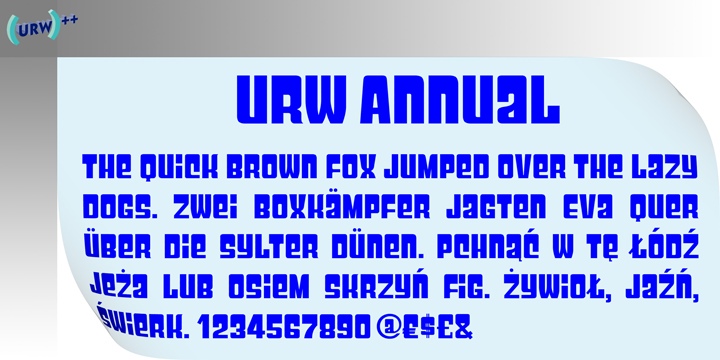
Annual Font
Annual Font is perfect for corporate annual reports, financial presentations, business documentation, professional newsletters, quarterly statements, investment portfolios, executive summaries, and formal corporate communications where authority and credibility are crucial.
What makes Annual Font so exciting is its sophisticated corporate character that instills confidence and professionalism in every document while maintaining exceptional readability for complex data presentations. The structured letterforms create a sense of reliability and trustworthiness that perfectly aligns with corporate communication standards.
The Annual Font family includes light, regular, medium, bold, and extra bold weights, along with condensed variants and matching italics, providing comprehensive flexibility for hierarchical document structures and multi-level information presentation.
This authoritative typeface embodies the essence of corporate excellence, combining formal design principles with contemporary accessibility standards. The Annual Font Free Download offers businesses access to a premium font that communicates competence and organizational strength.
The font's carefully balanced proportions and consistent spacing ensure optimal performance in dense text environments typical of financial documents and technical reports. Advanced kerning and spacing adjustments guarantee professional appearance across all business applications from printed materials to digital presentations.
Annual Font features extensive numerical support including tabular figures, fractions, and scientific notation, making it ideal for financial data, statistical information, and technical documentation. The typeface maintains clarity and distinction even in small sizes commonly used for footnotes and disclaimers.
From boardroom presentations to shareholder communications, this font projects authority and competence that reinforces corporate messaging and brand credibility. The versatile design adapts seamlessly to both traditional print formats and modern digital distribution channels.